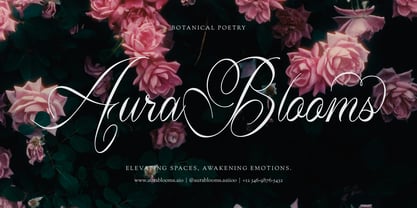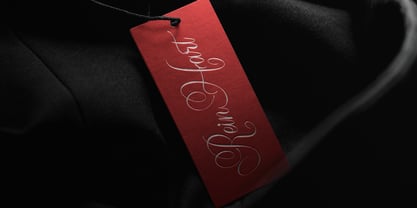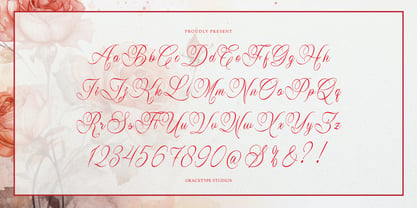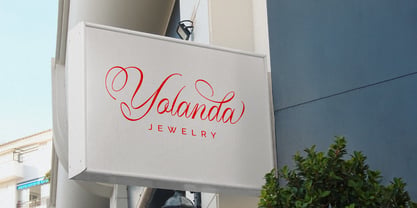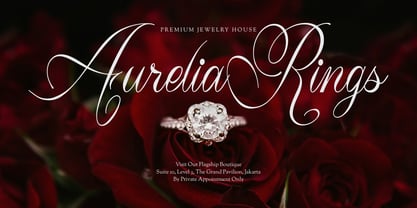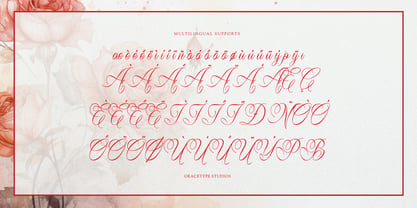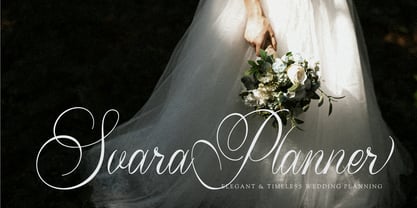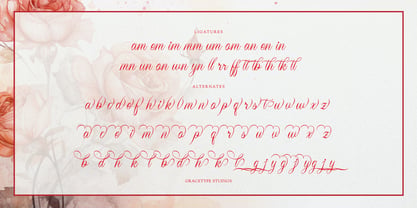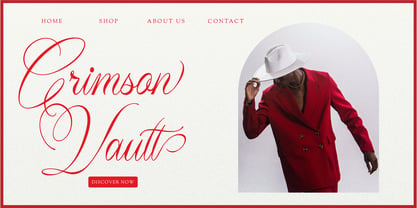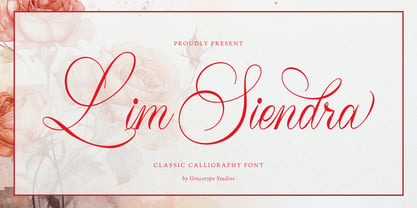
Lim Siendra
by Tini Fitriani
The Lim Siendra Font Family and published by Tini Fitriani. Lim Siendra contains 2 styles and family package options. More about this family
Lim Siendra | Classic Calligraphy, from Gracetypestudio, suitable for any projects such as: logos, branding projects, homeware designs, product packaging, mugs, quotes, posters, shopping bags, t-shirts, book covers, name card, invitation cards, greeting cards, label, photography, watermark, special events, and all your other lovely projects that need a Calligraphy taste.